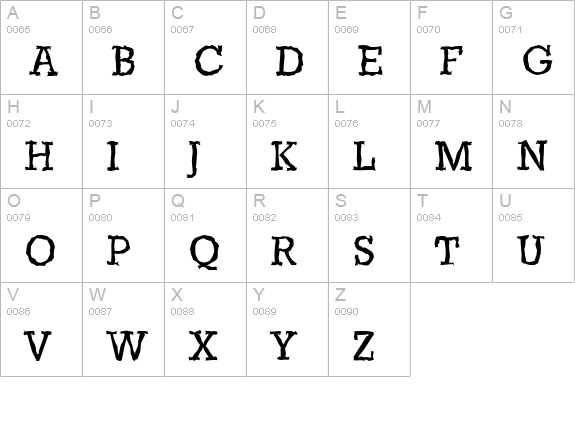
StaffordRandom-Regular is the standard, neutral variant in the StaffordRandom typeface family \xE2\x80\x94 well suited to general body text, paragraphs, and standard typographic work.
StaffordRandom-Regular font is a unique and eye-catching typeface that adds a touch of creativity to any design project. With its playful and irregular letterforms, this font is perfect for making a statement or adding a fun element to your work. This font is freely available to download at FontsMarket.com, making it accessible to all designers and creatives looking to add a fresh and dynamic look to their projects. Whether you are working on branding, advertising, or any other creative endeavor, StaffordRandom-Regular font is sure to make a lasting impression.